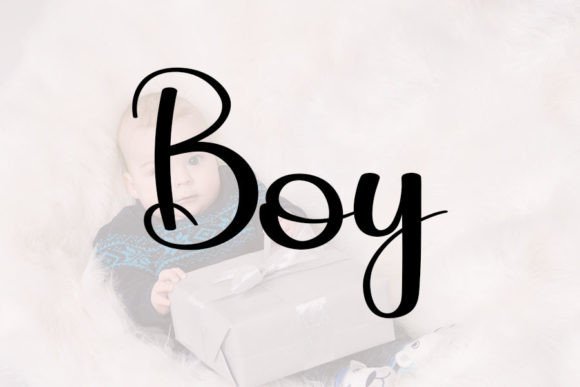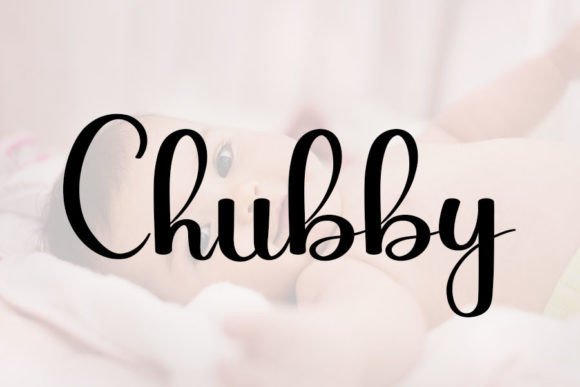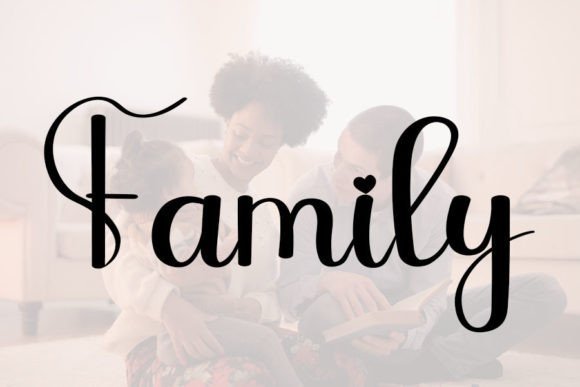
Daddy Font: Elevate Your Designs with Elegance and Timeless Style
Are you on the hunt for a font that exudes elegance, sophistication, and a touch of handmade charm? Look no further than the Daddy Font, a stunning handwritten typeface that is sure to capture your heart. With its incredibly distinct and timeless style, this beautiful font is perfect for designers and crafters looking to add a personal touch to their projects.
The Characteristics of Daddy Font
Daddy Font is described as a neat and beautiful handwritten font, characterized by an elegant touch that sets it apart from other typefaces. Its unique blend of classic and modern elements makes it an excellent choice for a wide range of design applications, from wedding invitations and branding materials to social media graphics and packaging design.
Why Fall in Love with Daddy Font?
So, what makes Daddy Font so special? Here are just a few reasons why designers and crafters are falling in love with this gorgeous font:
- Elegant and Refined: Daddy Font boasts an undeniable air of sophistication, making it perfect for high-end branding, luxury packaging, and elegant event designs.
- Timeless Style: Unlike trendy fonts that quickly go out of style, Daddy Font’s classic charm ensures it will remain relevant for years to come.
- Versatile: Whether you’re designing for print or digital platforms, Daddy Font adapts seamlessly to various mediums and applications.
- Easy to Read: Despite its elegant nature, Daddy Font remains highly legible, ensuring your message is communicated clearly and effectively.
Design Applications for Daddy Font
The versatility of Daddy Font makes it suitable for a wide range of design projects. Here are some ideas to get you started:
- Wedding and Event Design: Use Daddy Font to create stunning wedding invitations, save-the-date cards, and event branding materials.
- Branding and Packaging: Elevate your brand with elegant packaging design, business cards, and letterheads featuring Daddy Font.
- Social Media Graphics: Add a touch of sophistication to your social media posts and stories with Daddy Font.
- Stationery and Journaling: Create beautiful journals, planners, and stationery sets using Daddy Font.
Tips for Using Daddy Font Effectively
To get the most out of Daddy Font, consider the following tips:
- Pair with Contrasting Fonts: Combine Daddy Font with a clean sans-serif font to create visual interest and hierarchy.
- Experiment with Colors: Try pairing Daddy Font with rich jewel tones, metallic colors, or soft pastels to enhance its elegance.
- Play with Size and Scale: Use Daddy Font in various sizes to create visual emphasis and add depth to your designs.
Daddy Font is a truly special typeface that offers designers and crafters a unique opportunity to add elegance and sophistication to their projects. With its timeless style, versatility, and ease of use, it’s no wonder this beautiful handwritten font is quickly becoming a favorite among creative professionals. So why not fall in love with Daddy Font and take your designs to the next level?